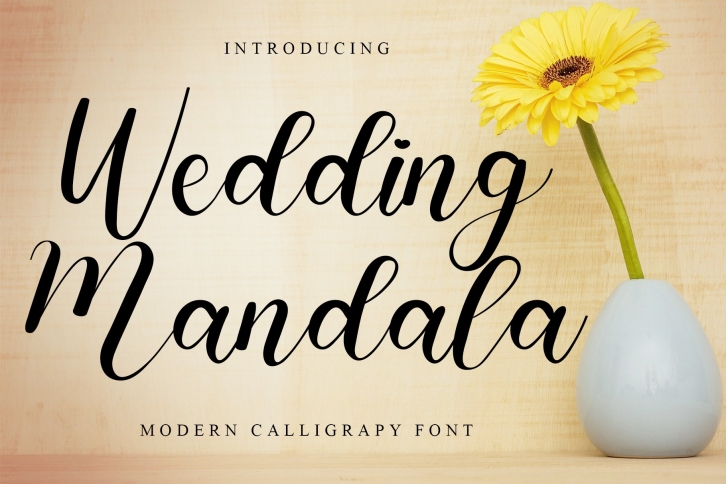
Wedding Mandala is a beautiful font that was designed by Giart Studios. It's a great choice for designers and creatives who need such a font. It was released on April 9, 2022 and the file size is 11.55 MB. Wedding Mandala may give a more youthful, expressive and casual look to your project. It is a very beautiful, refined, elegant, and high-quality font.